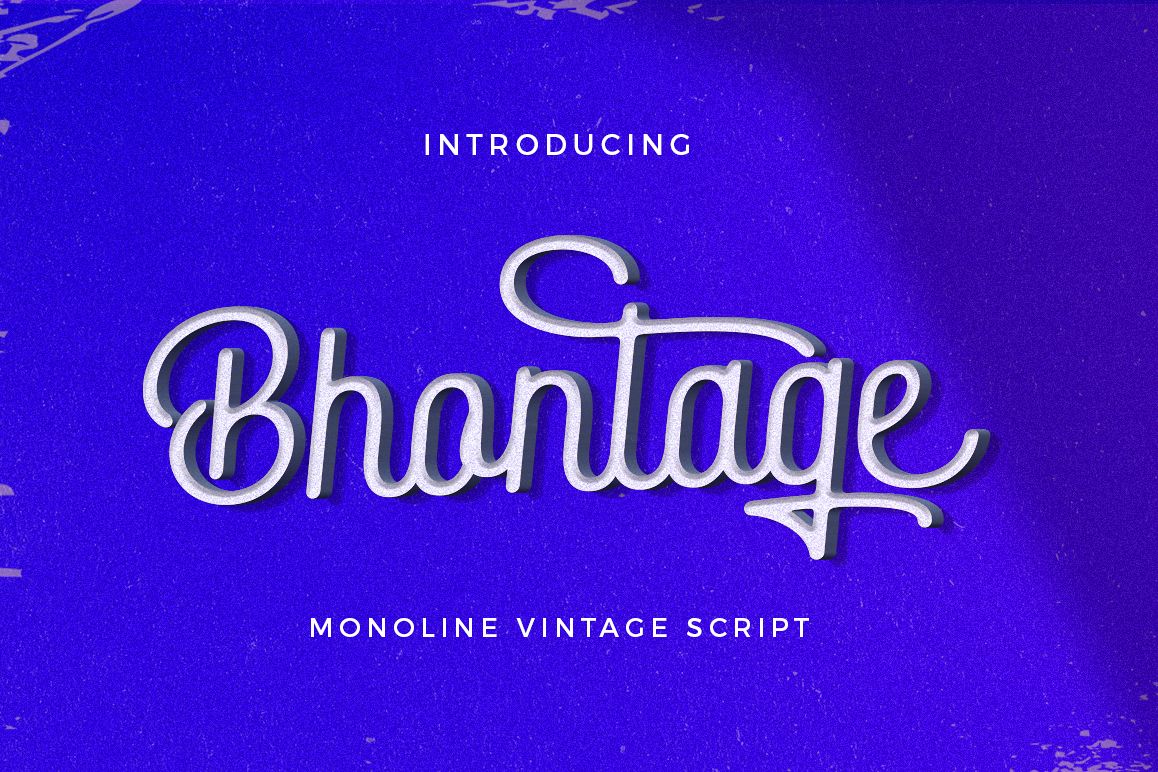
Bhontage
Bhontage is a powerful multipurpose handwritten font script that is suitable for all types of projects. It contains 333 total glyphs and 148 alternative characters that are divided into several OpenType features such as Ligature, alternatives, swash, style sets and alternative styles that allow you to mix and match letter pairs that match your design. You can access all these alternative characters by using OpenType smart programs such as Adobe Illustrator and Adobe InDesign. Bhontage Script is available in 2 different styles (Regular and Italic) in the .OTF, TTF format.